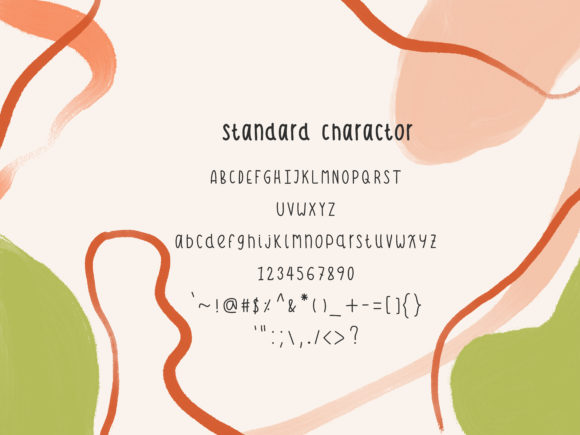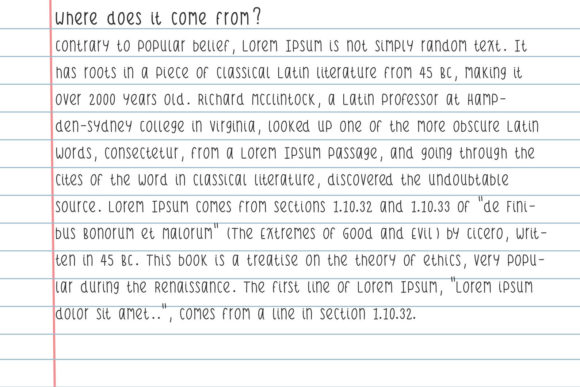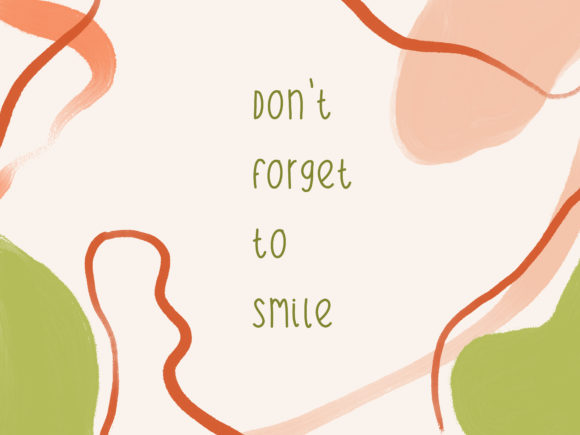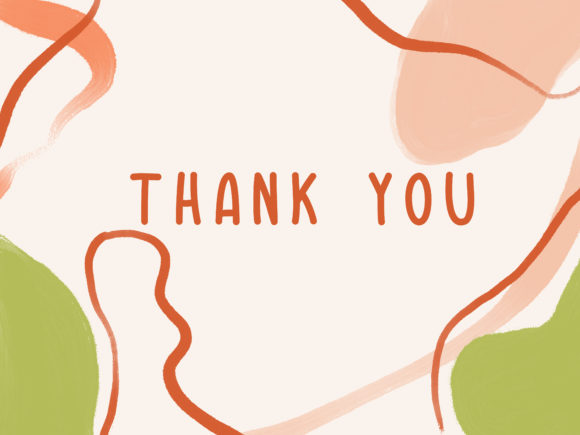
Introduction to Pink Mocha Font
Pink mocha is a cute handwritten font specially made for creative minds that need unique typography.
Use this beautiful typeface for creative projects that require a natural and authentic look .
Key Features of Pink Mocha Font
Why Choose Pink Mocha Font?